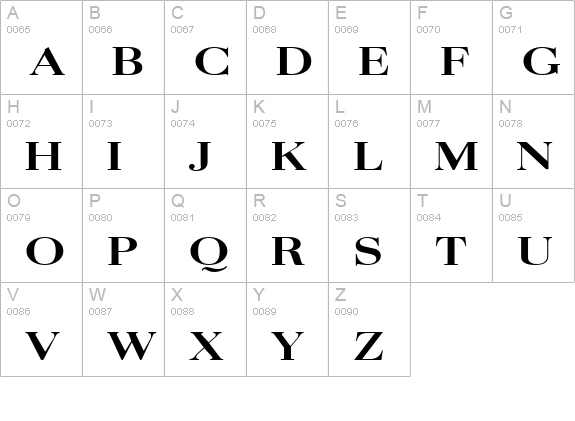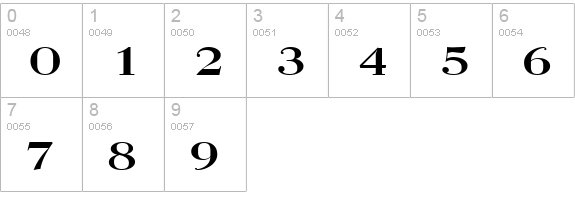
Quantas Broad Bold is a strong, high-contrast variant in the Quantas typeface family \xE2\x80\x94 well suited to headlines, attention-grabbing titles, and strong calls-to-action.
Introducing Quantas Broad Bold, a stunning typeface designed to captivate and inspire. With its bold and commanding presence, this font commands attention and effortlessly enhances any design project. Quantas Broad Bold effortlessly blends elegance and strength, making it the perfect choice for headlines, logos, branding materials, and more. Its clean lines and pronounced letterforms ensure maximum legibility, even at smaller sizes. What sets Quantas Broad Bold apart is not only its exceptional design but also its availability. This remarkable font is freely available to download at FontsMarket.com. This means that designers, creatives, and enthusiasts alike can enjoy the versatility and impact of Quantas Broad Bold without any limitations. So whether you're looking to make a statement on a poster, create a memorable logo, or add a touch of sophistication to your website, Quantas Broad Bold is the ideal choice. Download it for free at FontsMarket.com and unlock a world of possibilities for your designs.